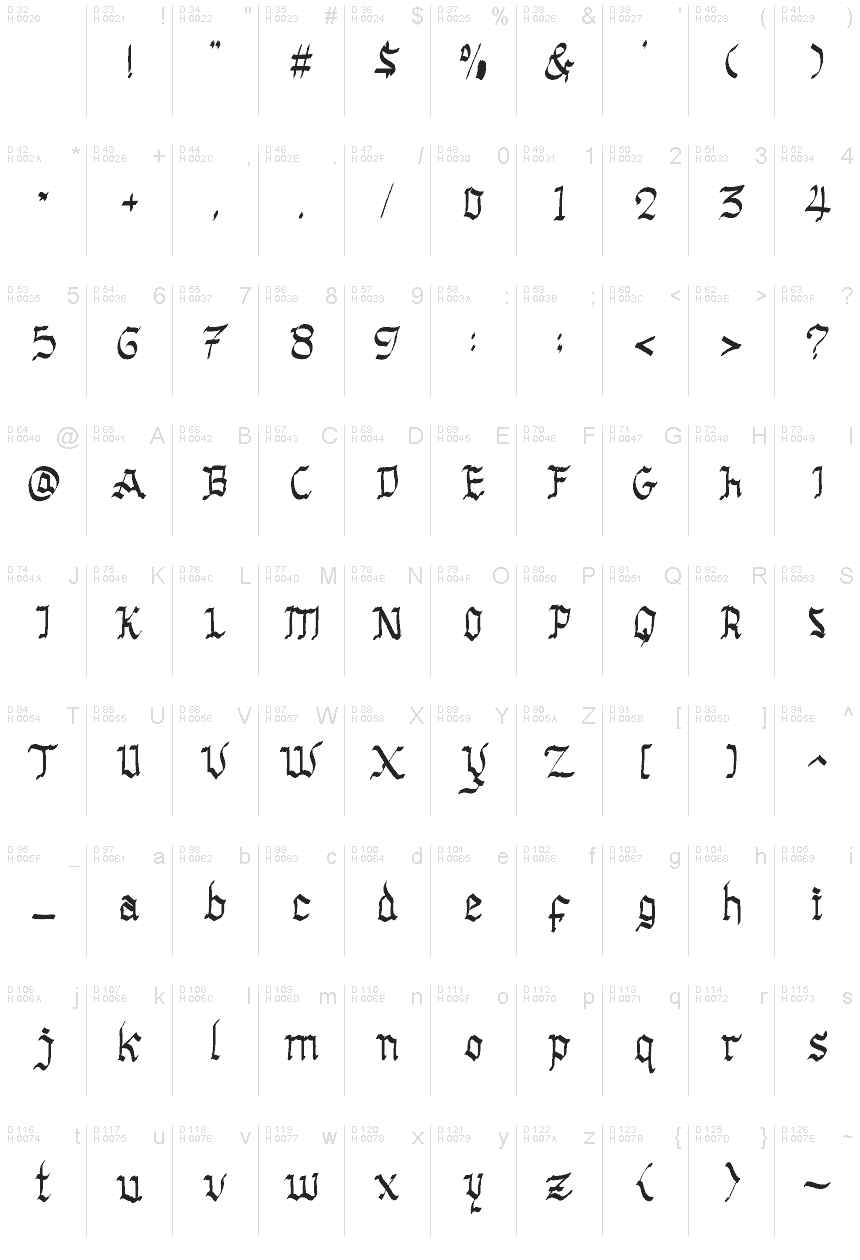
The Monster
The Monster font is a gothic typeface designed by Lontong Lodeh. With dark and imposing shapes combining loops and curves, the font exudes an unique medieval aesthetic which evokes both mystery and dramatic imbalance. Use its mysterious charm.
Use The Monster font by downloading it for free in unusual movie posters, event invitations, book titles in any genre as well as magazine covers. Lengthy online articles or blog posts are excellent candidates to have their headlines pop with this gothic-inspired typeface. Classic coffee shop menus could elevate themselves while stores may benefit from the font in store opening times or promotional materials.